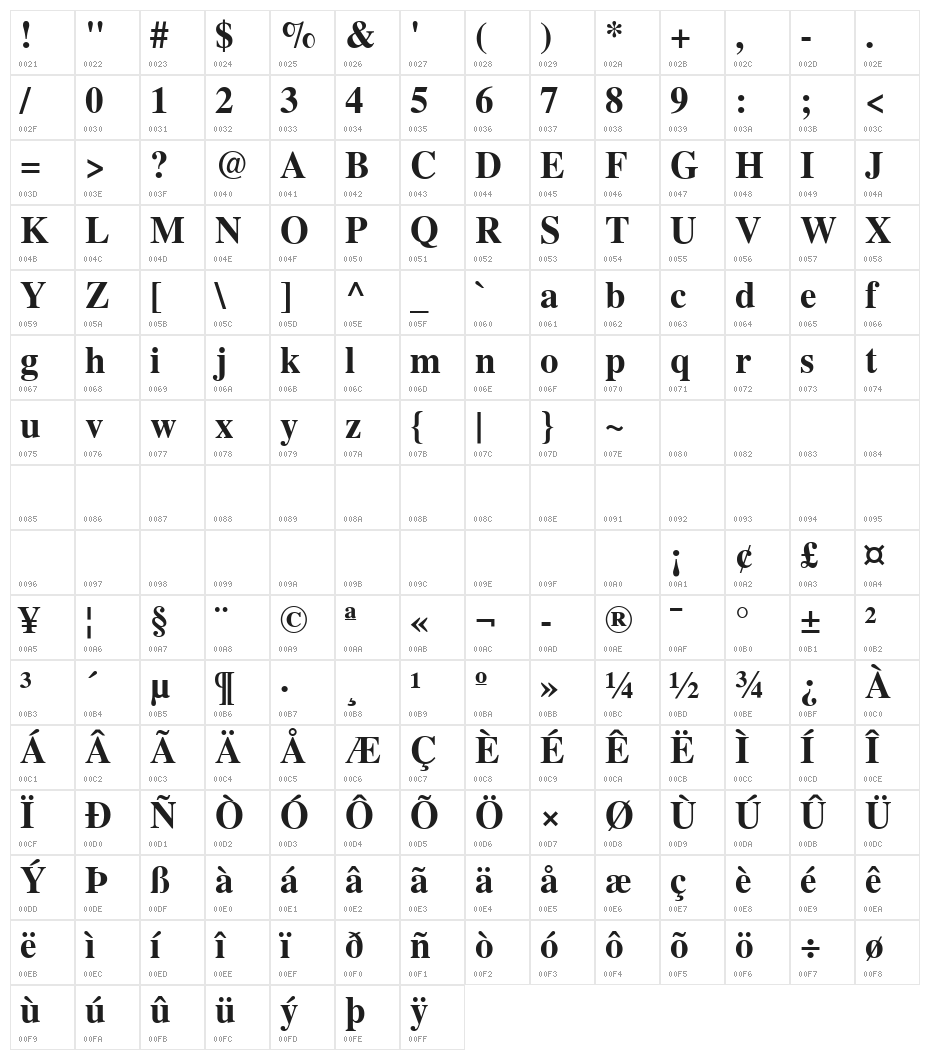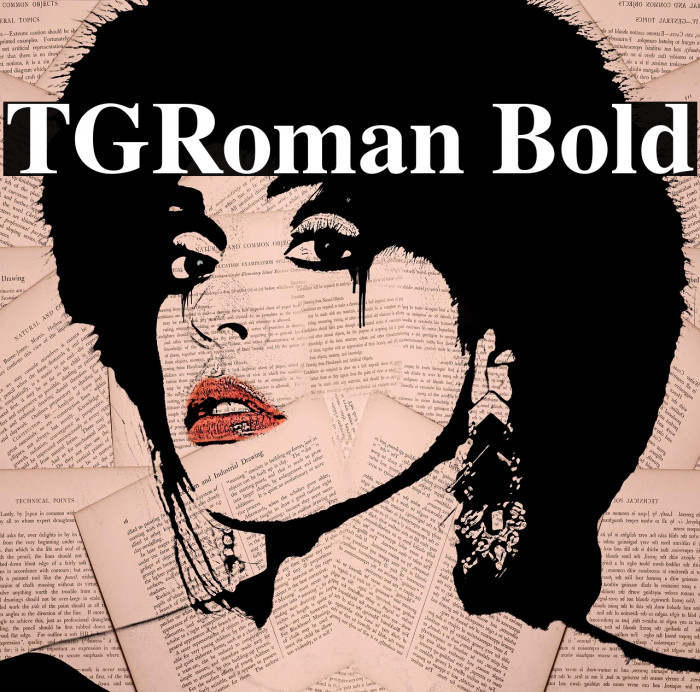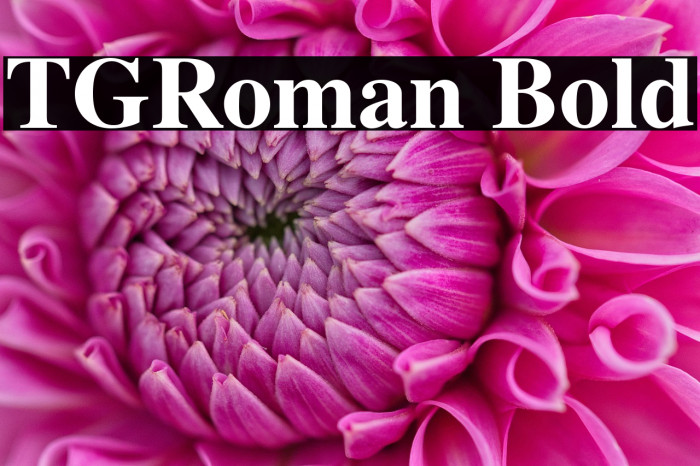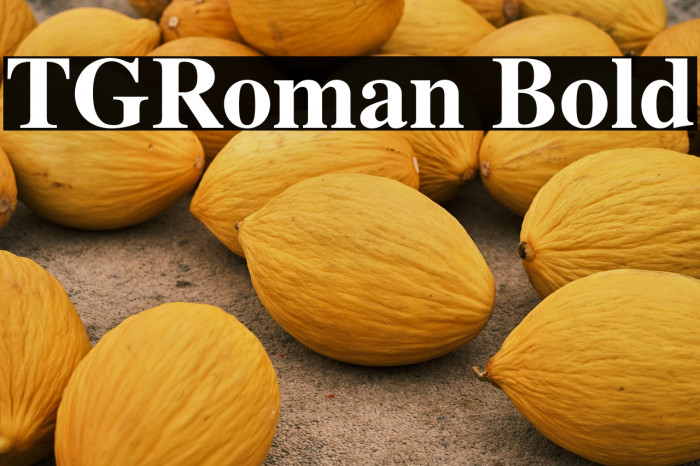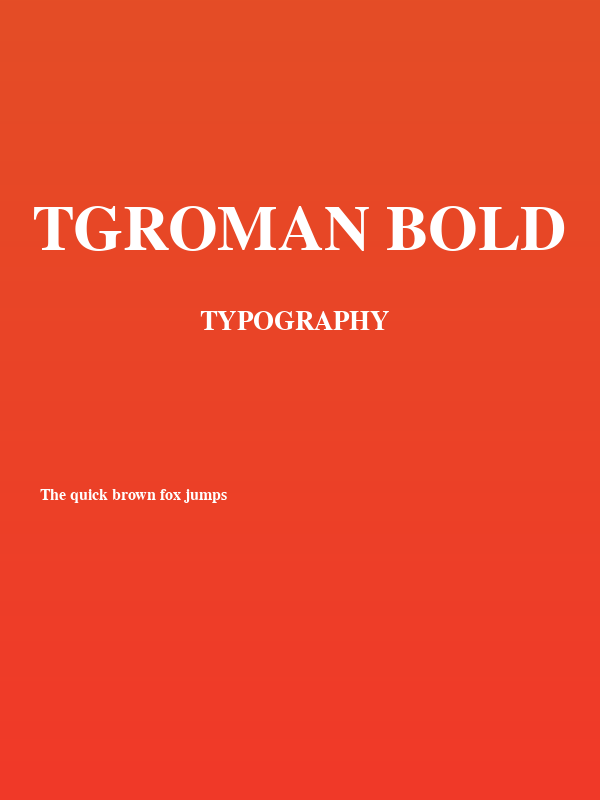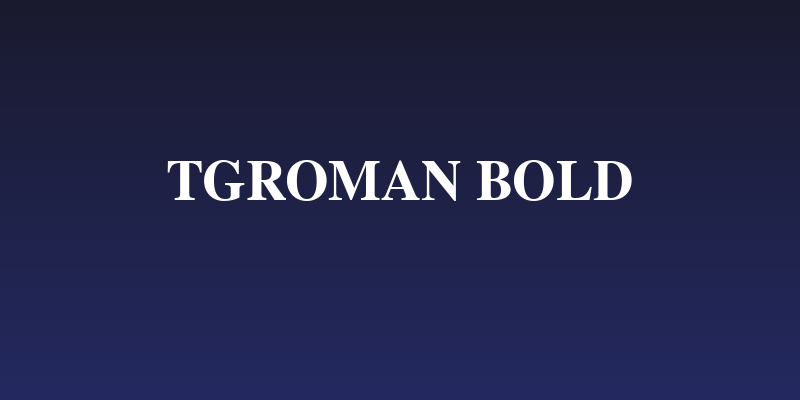
TGRoman Bold Font
TGRoman Bold Description
This font features a classic serif style with bold, prominent strokes that convey a sense of authority and tradition. The uppercase letters are well-defined with sharp serifs, while the lowercase letters maintain a consistent weight, ensuring readability. The numerals are clear and distinct, making them suitable for both formal and informal contexts. Special characters are elegantly designed, complementing the overall aesthetic. The font's bold nature makes it ideal for capturing attention while maintaining a sophisticated appearance.
| Use Case | Headlines, Logos, Editorial design |
| Proposed Projects | Ideal for book covers, formal invitations, branding materials, and editorial design. |